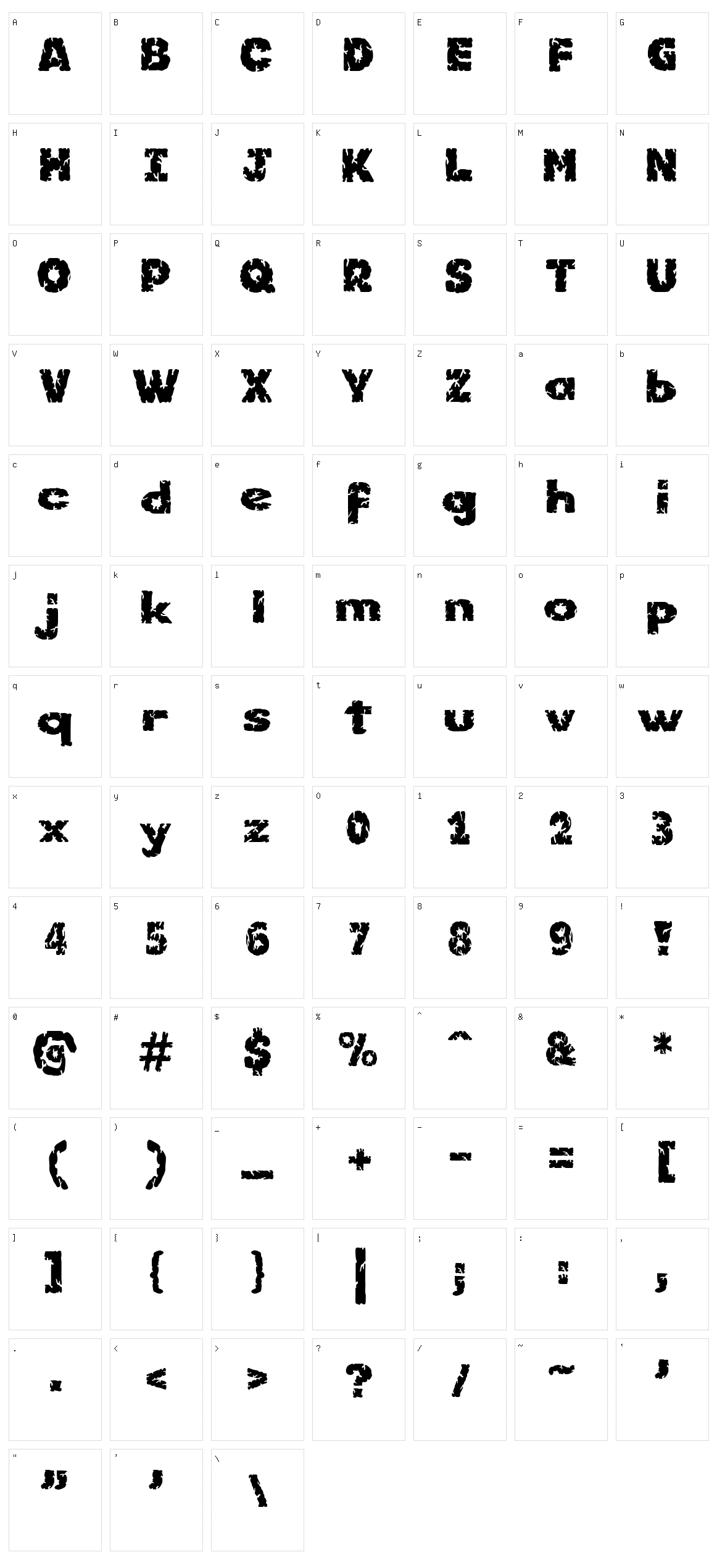
The free font Kornik is carefully designed by Tomasz Skowroński, showcasing a thoughtful balance of creativity and usability and falls under the Eroded font style. When you download the ZIP file, it contains only 111.66 KB of font files, making it lightweight and quick to download. Please review the license details below to understand permitted usage and distribution rights. If license information is not available, we recommend using this font for personal projects only or contacting the author directly for commercial usage permissions.